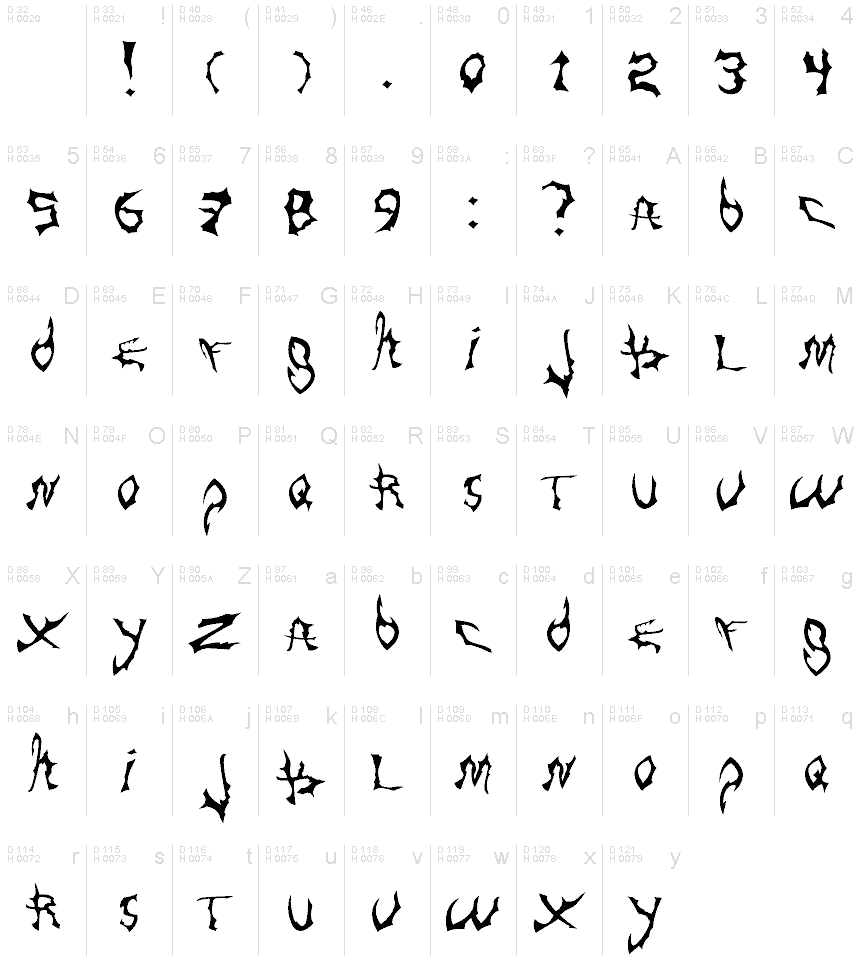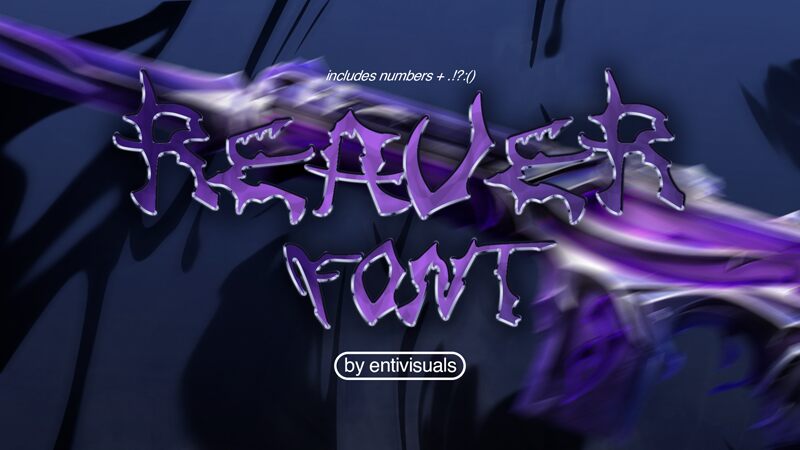
Reaver
Reaver font by Entivisuals is a spooky and scary display font with angular letters that look jagged and saw-like. It has gothic-inspired characters which start wider from the bottom and are steadily getting narrower as they go up. The modern appearance makes it rather versatile for use in many of your projects although the one context where it fits more is something related to fear, horror, adrenaline.
Use this free display font for comics, magazines, books covers, athletic t-shirts designs among others. Also try it in music posters, inspirational quotes or as part of new branding logotypes.